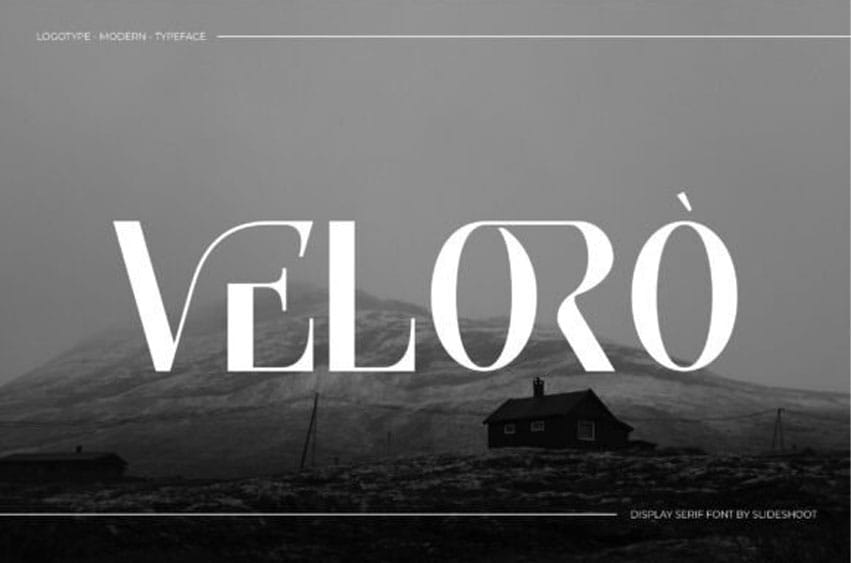
Veloro Font is a refined and striking display serif font that blends classic elegance with contemporary minimalism. With its dramatic contrast, sculpted curves, and sharp geometric details, this typeface exudes a bold, luxurious aesthetic—ideal for high-end branding, fashion editorials, packaging, logos, and upscale headlines.
The unique character shapes and stylish alternates bring a sense of distinction and creativity to every letterform, making it perfect for projects that demand both sophistication and individuality.
Whether used for bold headlines or refined typographic statements, Velorò offers timeless elegance with a modern twist.